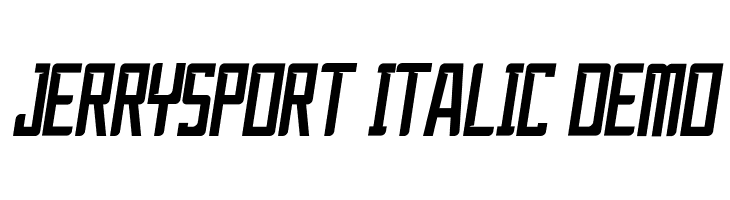
A bold, italicized font with a sporty and angular design.
A bold, italic, and sporty font with a modern, angular design.
A bold, angular font with a sporty, dynamic style.